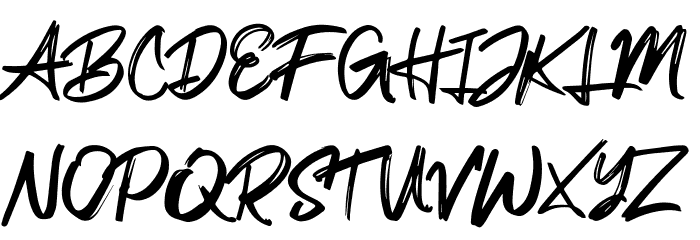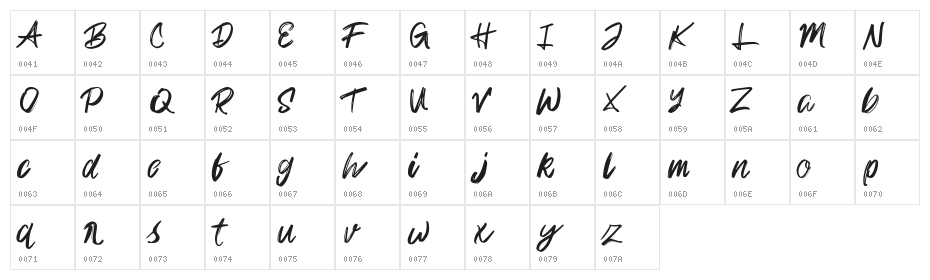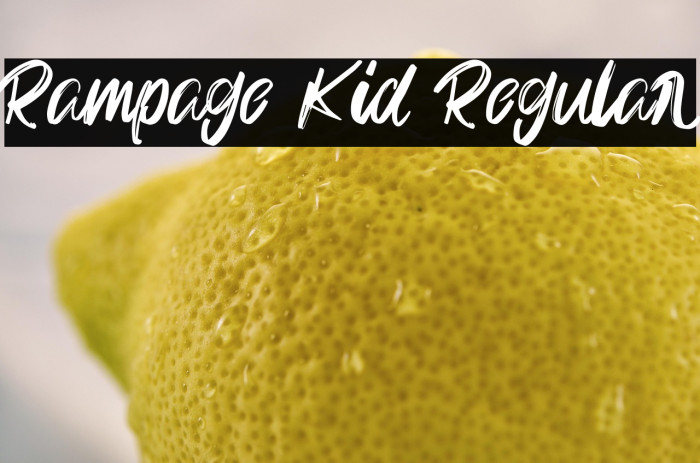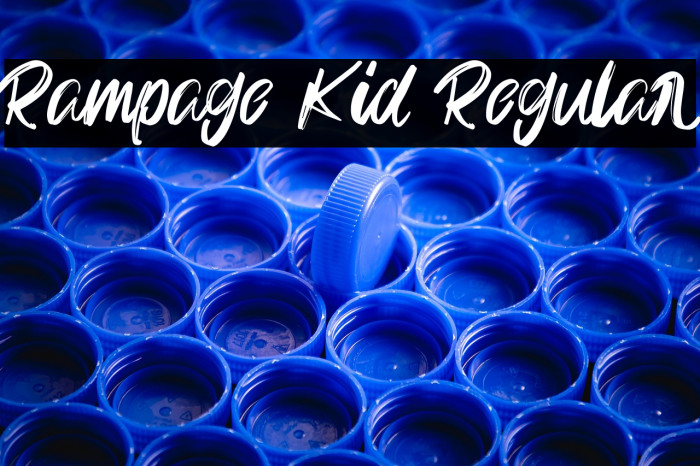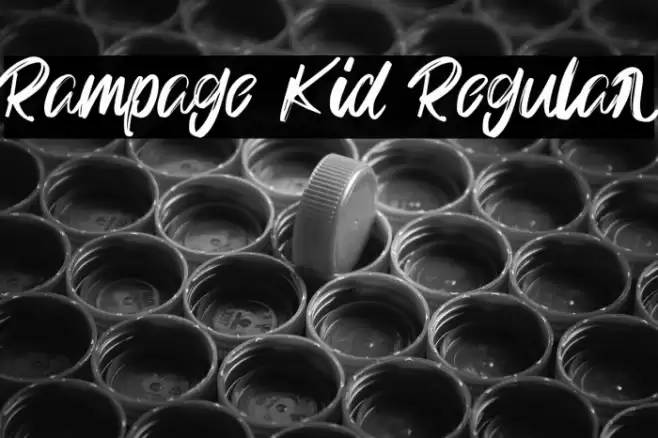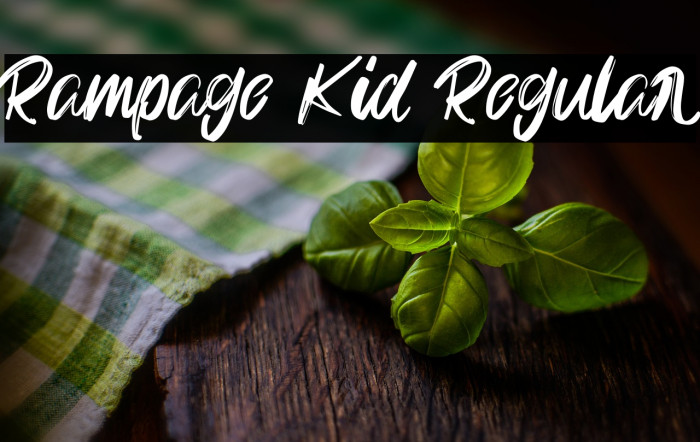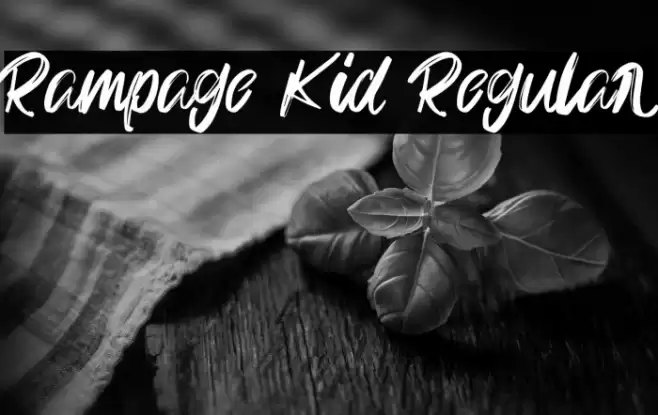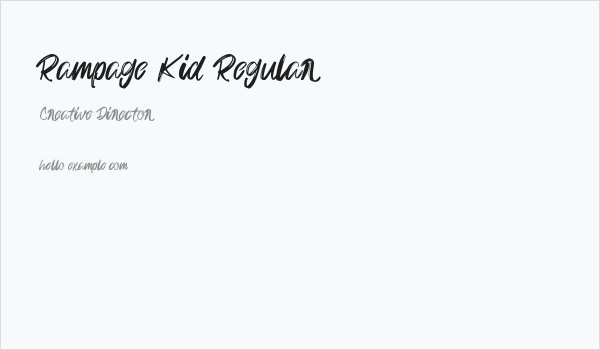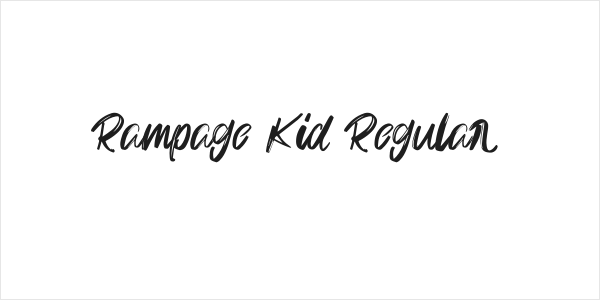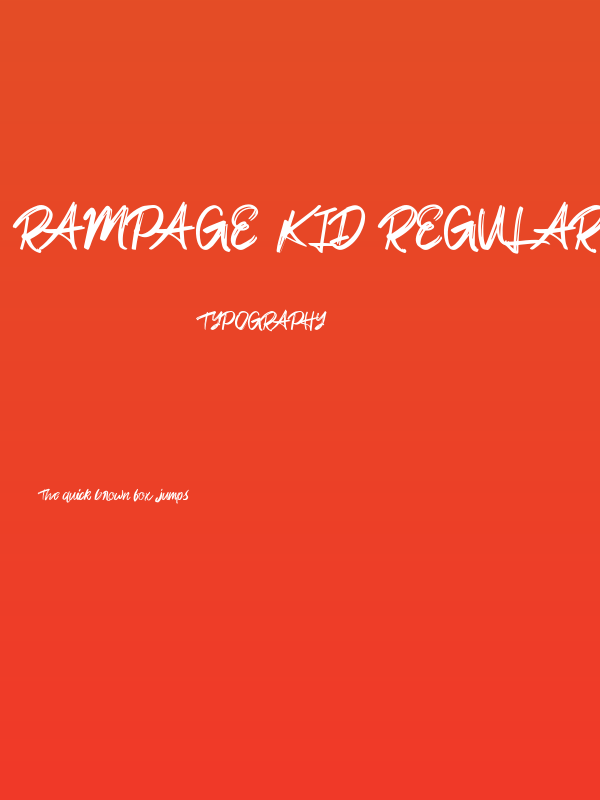
Rampage Kid Regular Font
Rampage Kid Regular Description
This font exudes a dynamic and energetic vibe, characterized by its bold, brush-like strokes that convey a sense of movement and spontaneity. The letters are slightly slanted, adding to the impression of speed and fluidity. Each character is distinct with a playful yet aggressive edge, making it ideal for projects that require a strong visual impact. The uppercase and lowercase letters maintain a consistent style, with the uppercase being slightly more pronounced. The numbers and special characters follow the same energetic theme, ensuring uniformity across all text elements.
| Proposed Projects | Ideal for streetwear branding, music album covers, graffiti art, and dynamic poster designs. |